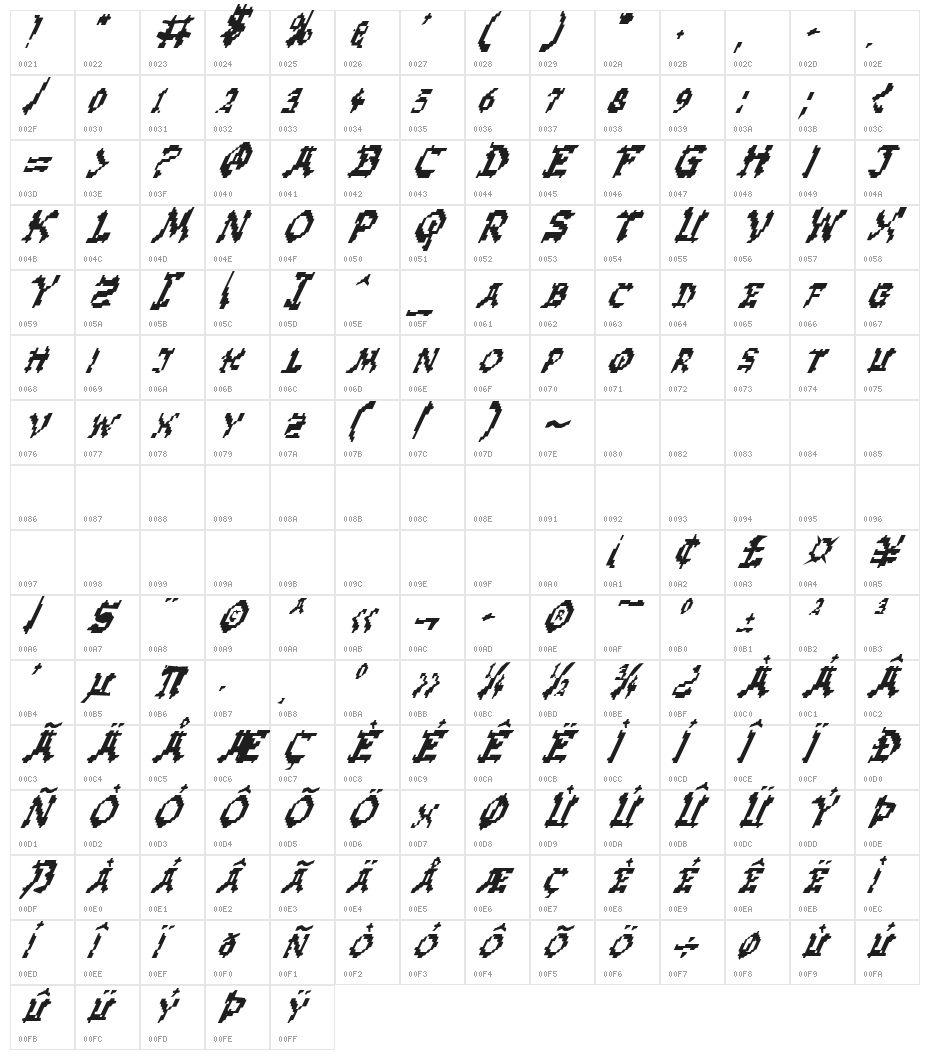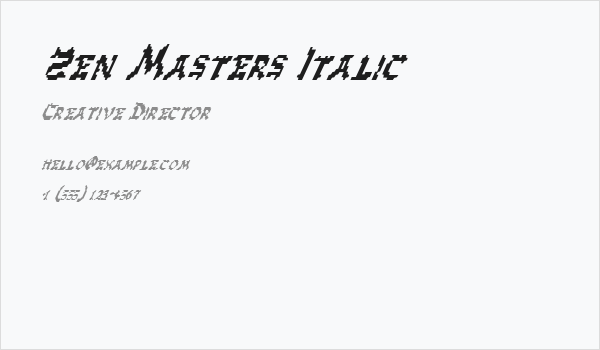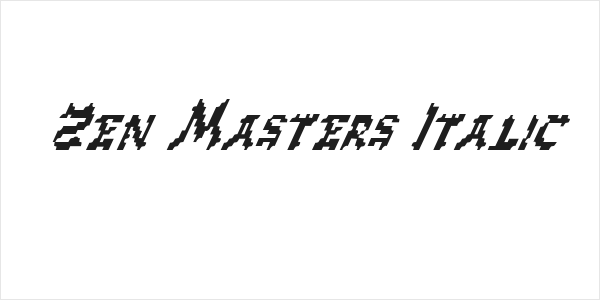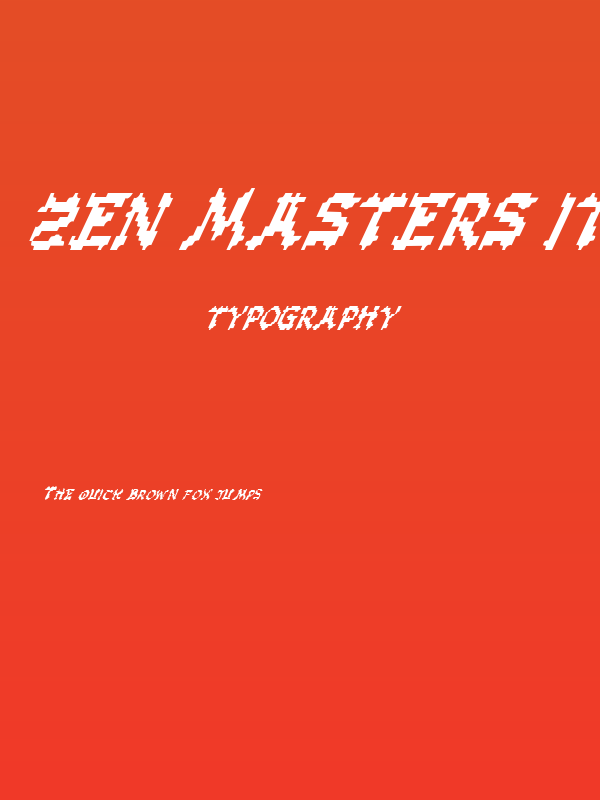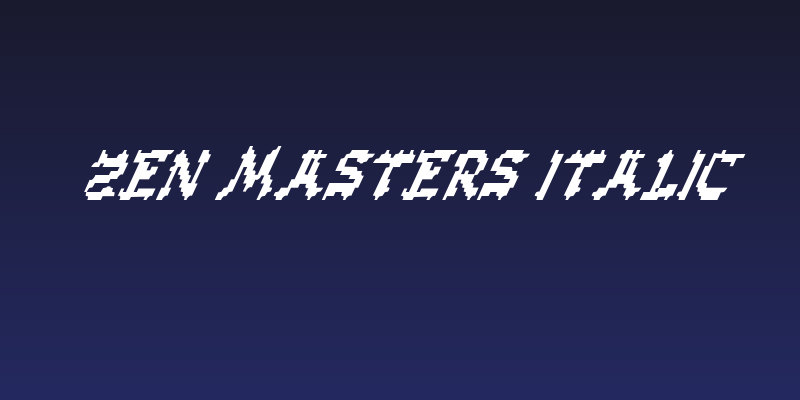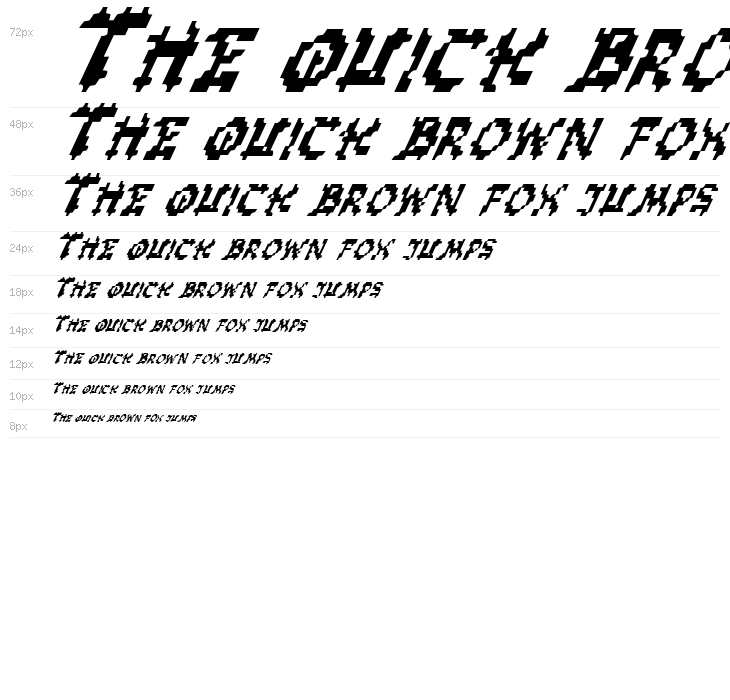
Zen Masters Italic Font
Zen Masters Italic Description
This font features a bold, italicized style with a distinctive pixelated, jagged edge that gives it a dynamic and edgy appearance. The characters are slanted, enhancing the sense of movement and energy. The uppercase and lowercase letters maintain a consistent style, with sharp angles and a digital aesthetic reminiscent of retro video games or digital displays. The numbers and special characters follow the same design principles, ensuring uniformity across all glyphs. This font's unique style makes it stand out, suitable for projects that require a modern yet nostalgic touch.
| Overall Style | Modern, Retro |
| Use Case | Headlines, Logos, Digital Art |
| Proposed Projects | Ideal for video game graphics, digital art projects, retro-themed designs, and eye-catching headlines. |